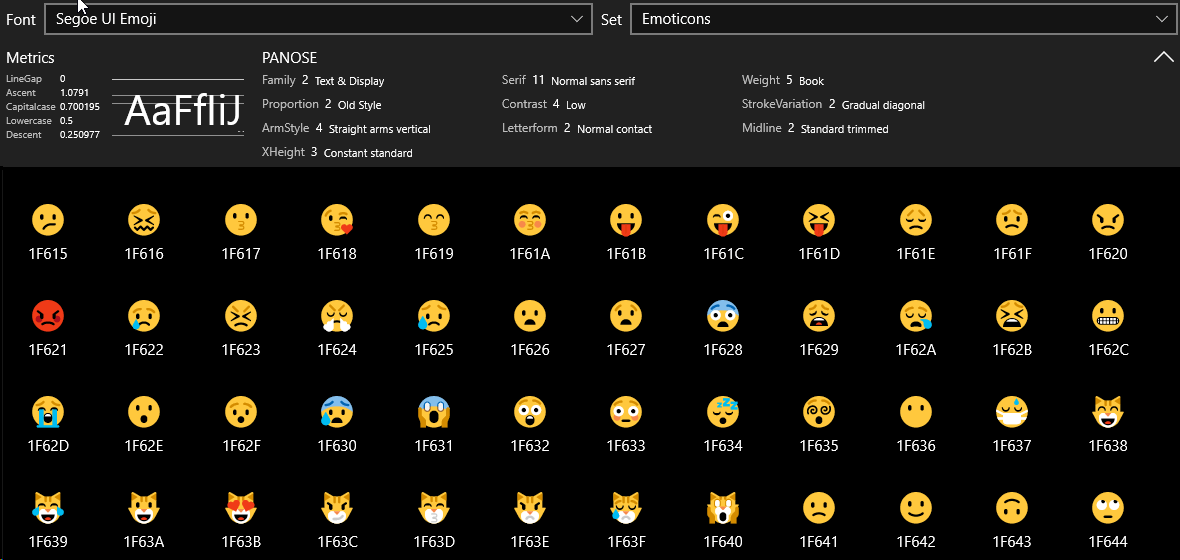
Segoe Ui Emoji How To Use. With photoshop cc 2017, adobe added proper support for emoji, so let’s look at how to use them. For microsoft, it is segoe color emoji font that provides the emoji.
Other than wholesale replacing the symbols font with an emoji font, this seemed like the only approach that worked decently. Therefore, the last version of modern (thick black outline) emojis were shipped to a now outdated build of windows 11 with segoe ui emoji version 1.31, available for download from here. Emoji characters are accessed through the onscreen keyboard's smiley key.
With photoshop cc 2017, adobe added proper support for emoji, so let’s look at how to use them. Not all characters in this font are actually emoji. When to use fluent icon symbols.
Paste One Of The Unicode Emoji Characters Like 👽 Into Word Using The Segoe Ui Emoji Font.
The fix is simple, select the boxes then select the font segoe fluent icons. · the syntax you used: Other than wholesale replacing the symbols font with an emoji font, this seemed like the only approach that worked decently.
The Colored Emoji Version Will Be Shown If The Recipient’s Computer Supports Colorful Emoji.
For microsoft, it is segoe color emoji font that provides the emoji. Diversified emoji is a big topic right now, as not everyone. It doesn't show segoe ui symbol example:
An Update For The Segoe Ui Symbol Font In Windows 7 And In Windows Server 2008 R2 Brought A Subset Of The Monochrome Unicode Set To Those Operating Systems.
Emoji characters are accessed through the onscreen keyboard's smiley key. Open the document you’re working on (or a blank one) in photoshop. In the menu bar, select the font dropdown and start typing “emoji”.
In Ps Segoe Ui Emoji Also Type Emoji As Outline.